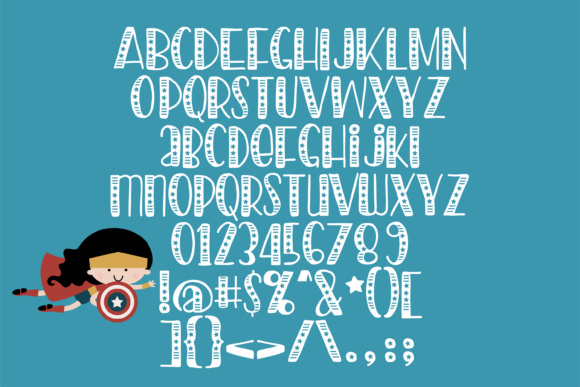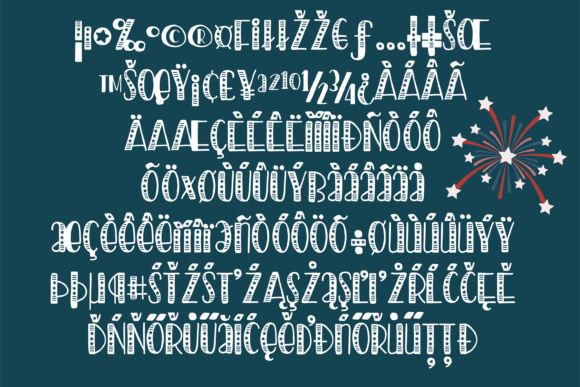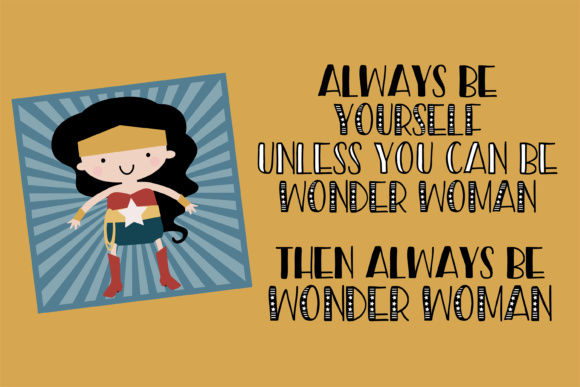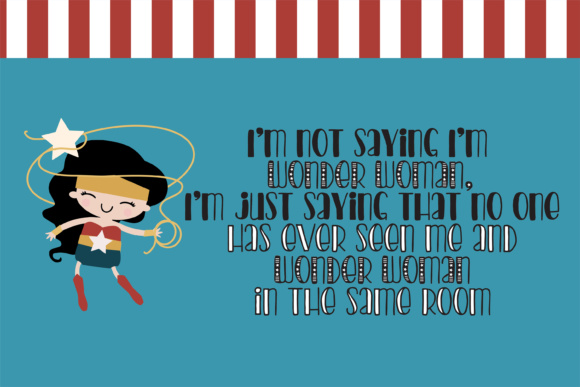
Introducing Americana Preserves: The Perfect Patriotic Font for Your Designs
Ah, the quest for the perfect font! I recall working on a 4th of July project last year, searching for a font that captured the essence of American patriotism. My client wanted a design that screamed “Happy Independence Day!” but I was stuck with bland, generic fonts that just didn’t cut it. That’s when I stumbled upon Americana Preserves, a gorgeous handwritten font that features stars and stripes. It was love at first sight! 💫
An Honest Review of Americana Preserves
- ✨ Unique and eye-catching design with patriotic flair
- ✅ Handwritten feel that adds a personal touch to any design
- 💫 Features stars and stripes, making it perfect for patriotic holidays
- 🎉 Highly versatile and can be used for various design projects, from invitations to social media graphics
While Americana Preserves is an amazing font, there are a few things to keep in mind: 🤔
- ⚠️ Some characters may be a bit inconsistent in terms of letter spacing, which can affect readability at smaller font sizes
- ⚠️ Limited language support, so it’s best suited for English or similar languages
The Designer Inspiration Behind Americana Preserves
Americana Preserves was designed with the goal of capturing the essence of American patriotism. The designer, inspired by classic American fonts and the country’s rich history, created a font that’s both elegant and playful. With its unique blend of handwritten and patriotic elements, Americana Preserves is the perfect font for any design project that requires a touch of American flair.
Q: What makes Americana Preserves unique?
A: Americana Preserves features a unique blend of handwritten and patriotic elements, making it perfect for 4th of July and other patriotic holidays.
Q: Is Americana Preserves available in different languages?
A: Currently, Americana Preserves has limited language support, so it’s best suited for English or similar languages.